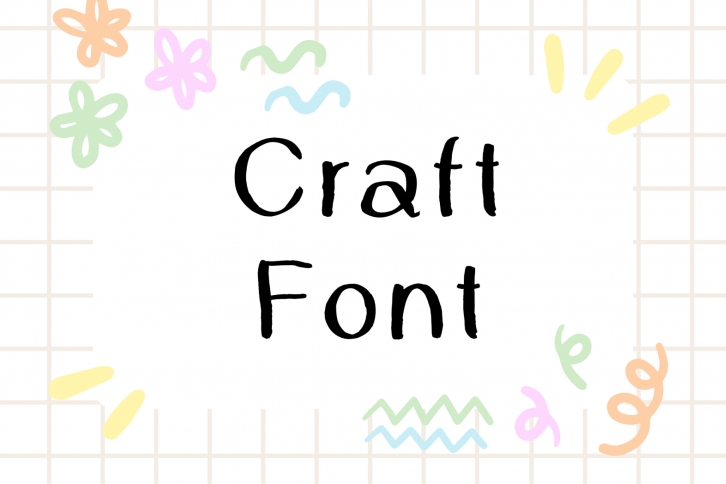
Craft is a playful handwritten font perfect for kids' projects and funny designs. Add it to your fonts library, and it will become your favorite in no time at all!